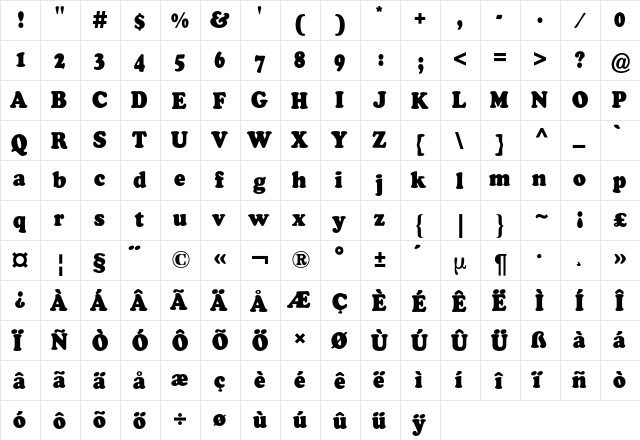
Cooper Black BQ Regular
Design Context for Cooper Black BQ Typeface
Cooper Black BQ offers clean, dependable letterforms without strong stylistic allegiance, making it a practical choice for designers who need flexibility.
Pro Tip: Pair Cooper Black BQ with a font of contrasting weight or personality to build a more expressive typographic hierarchy.